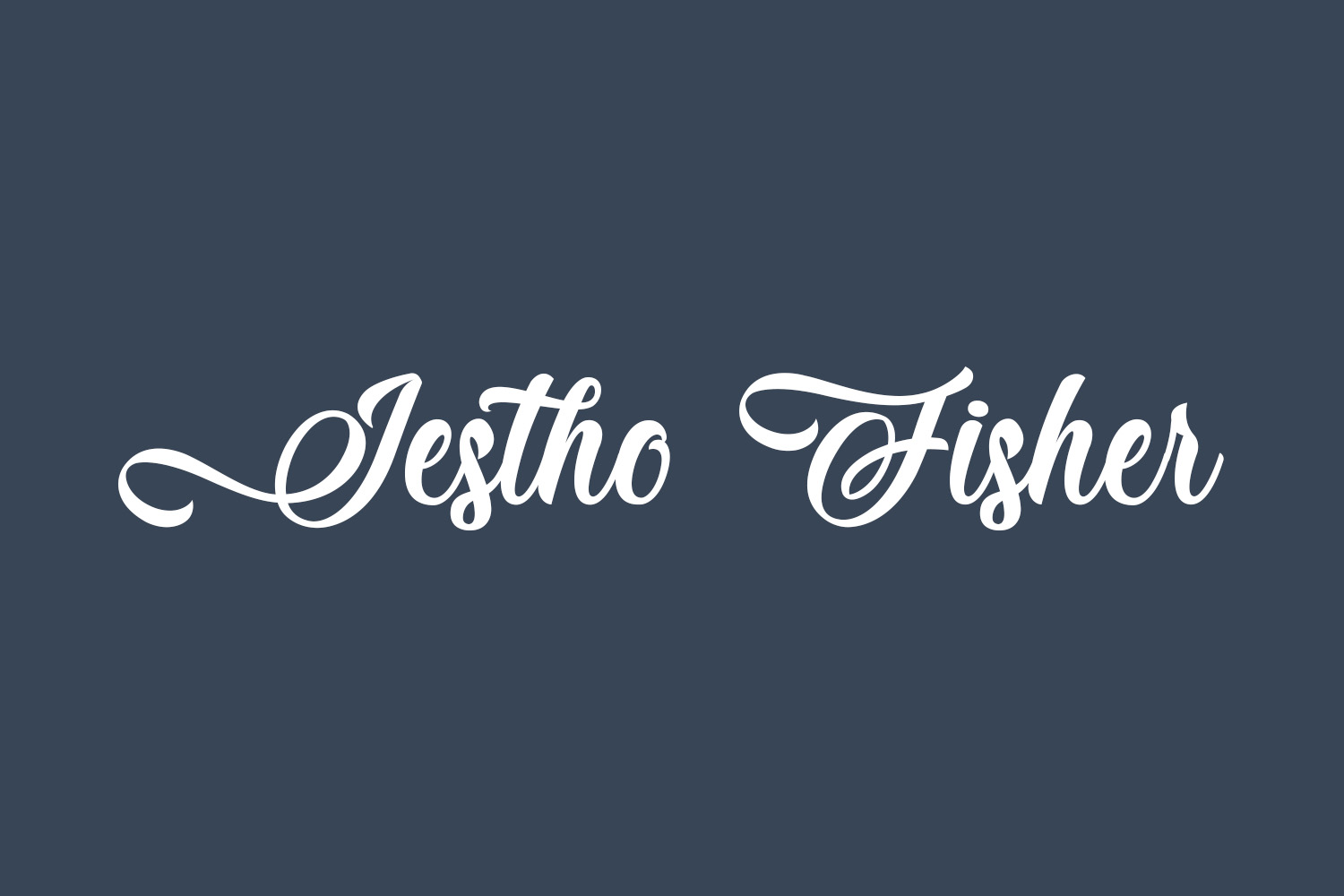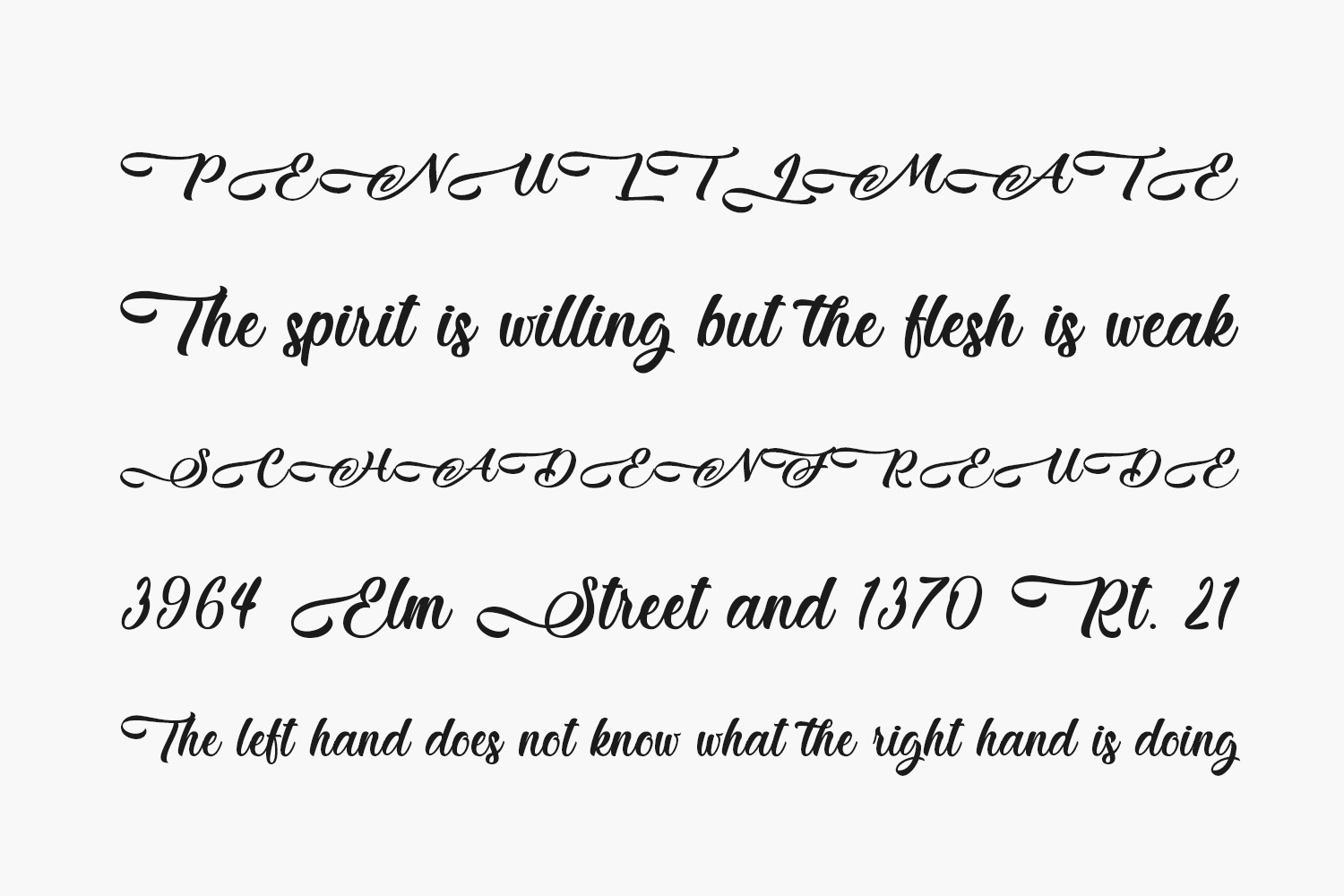
Jestho Fisher Free Font is a handwritten script font with an elegant, yet striking touch. Jestho Fisher Free Font was designed by Typhoon Type™ and is free for personal use only. Please purchase the full version for commercial use.